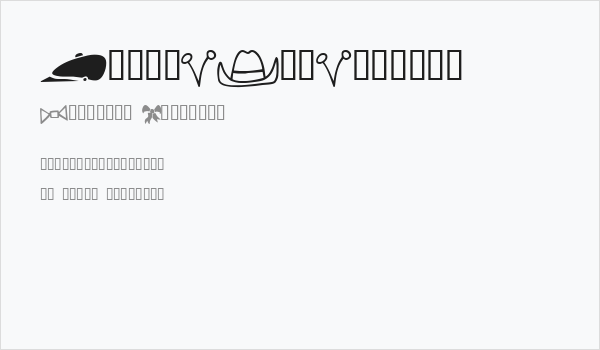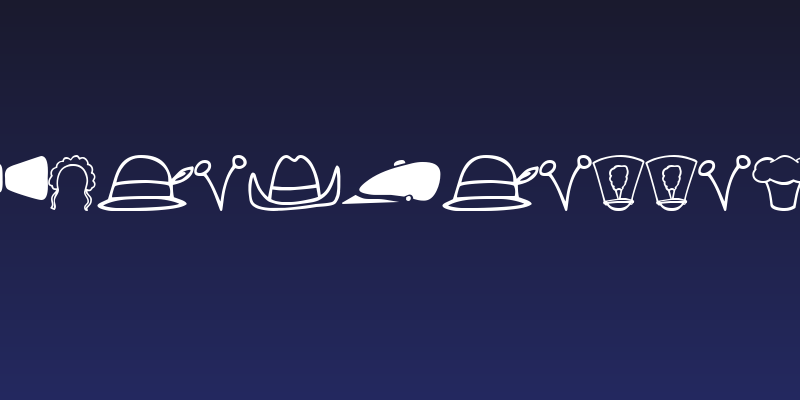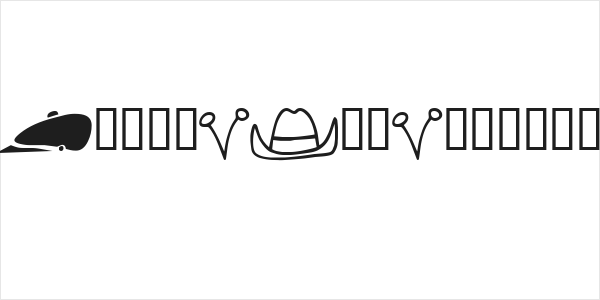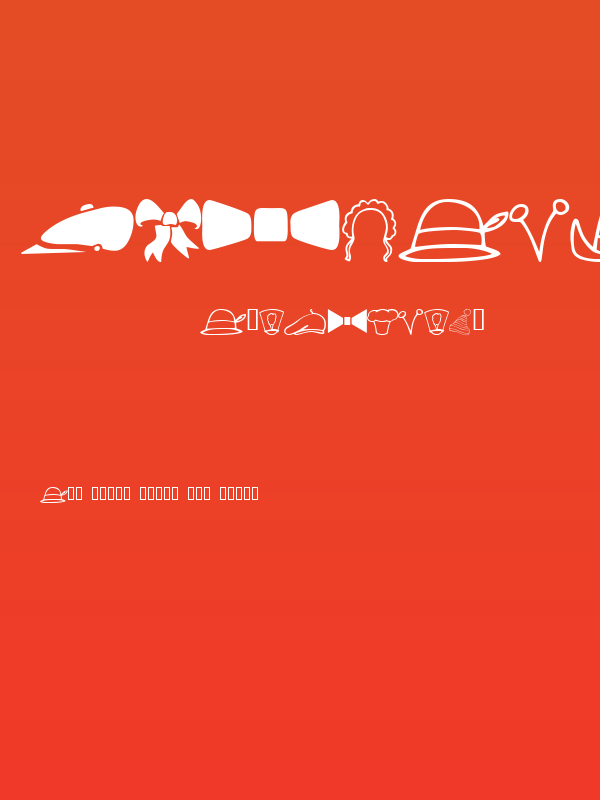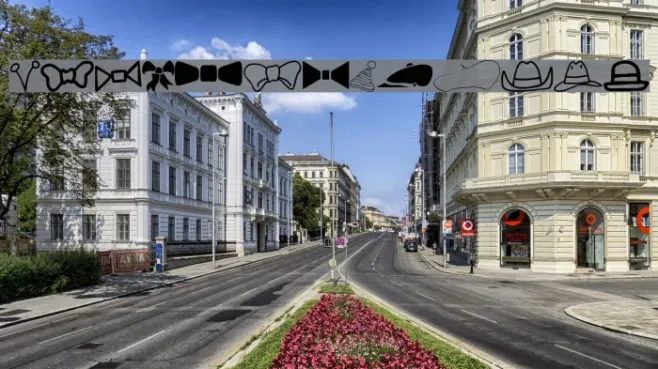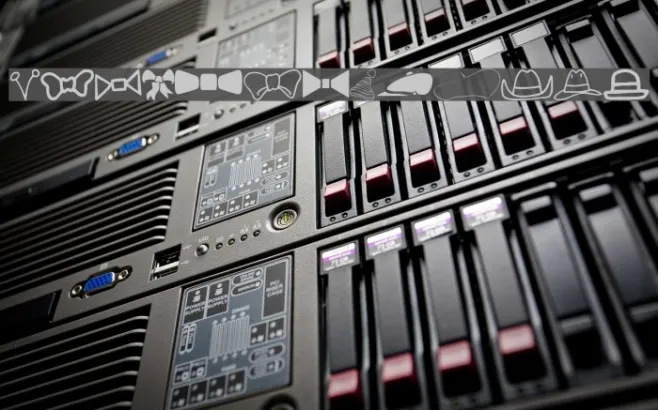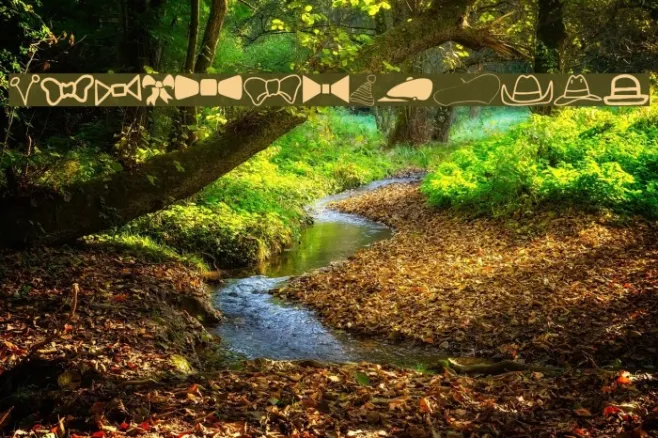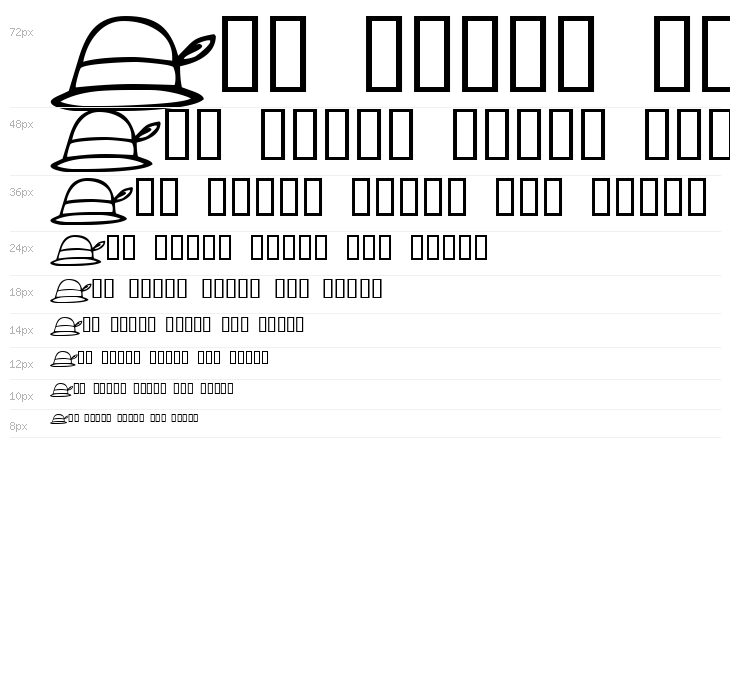
IdentAKitApparel Font
IdentAKitApparel Description
This is a decorative font featuring a variety of apparel and accessory icons, including hats, bows, and other clothing-related symbols. Each character is represented by a unique illustration, making it ideal for creative and thematic design projects. The style is playful and whimsical, with a focus on fashion elements. The icons are bold and clear, allowing for easy recognition and use in various design contexts.
| Overall Style | Playful and Whimsical |
| Use Case | Logos, Posters, Invitations |
| Proposed Projects | Ideal for fashion-related branding, children's books, playful invitations, and themed event materials. |